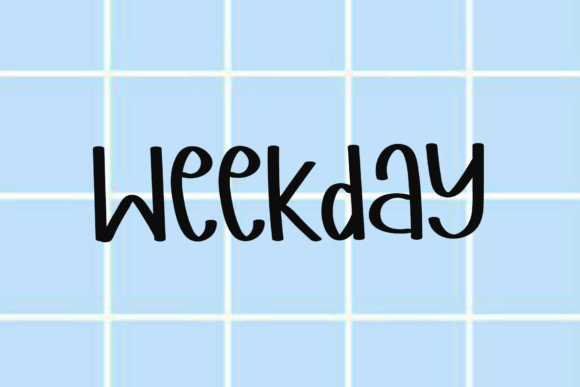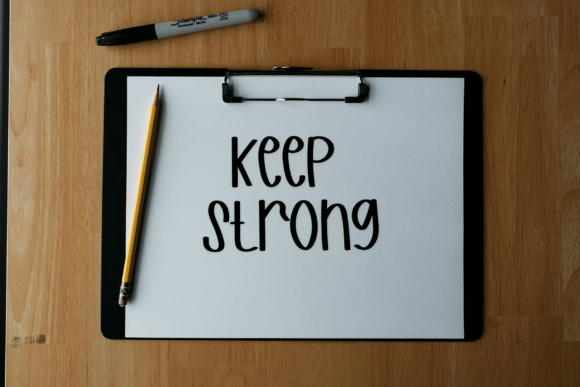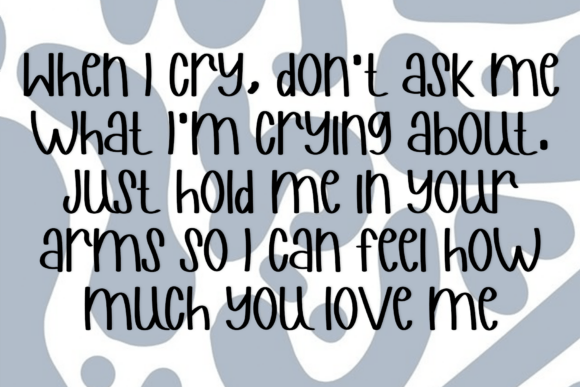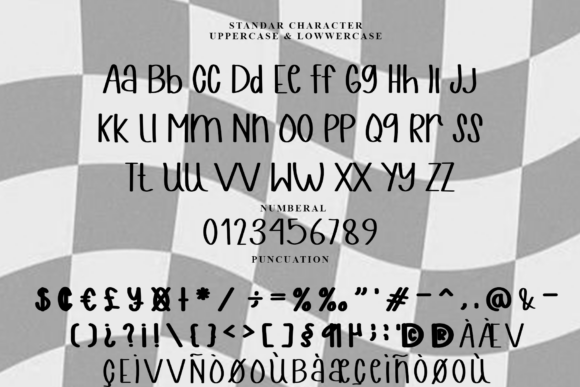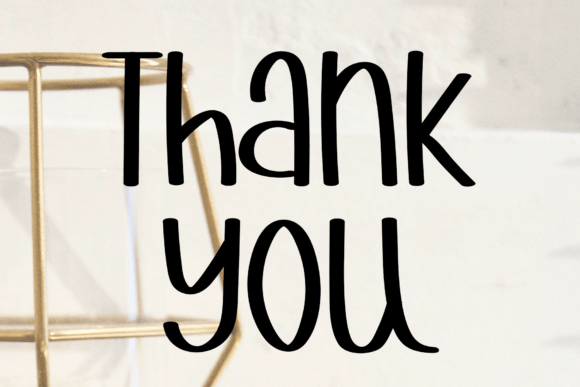
The Joy of Grafik Font: A Designer’s Delight
I still remember the time I was working on a Valentine’s Day project for a client, and I was on a mission to find the perfect font. I had a vision of something cute, playful, and romantic, but my usual go-to fonts just weren’t cutting it. That’s when I stumbled upon Grafik Font, and it instantly stole my heart! 💕 With its whimsical style, heart-themed elements, and clean letterforms, it’s the perfect addition to any design that needs a joyful, romantic touch.
An Honest Review of Grafik Font
- ✅ The handmade feel of Grafik Font is unparalleled – it’s like adding a personal touch to your designs.
- ✅ The heart-themed elements and whimsical style make it perfect for love notes, social posts, and greeting cards.
- ✅ The clean letterforms ensure that the font remains readable, even at smaller sizes.
- ✅ It’s incredibly versatile and can be used for a wide range of projects, from digital to print.
- ⚠️ Some of the more intricate heart-themed elements can get a bit lost at smaller font sizes.
- ⚠️ As with any font that relies heavily on OpenType features, you may encounter compatibility issues with certain software or platforms.
The Story Behind Grafik Font
Grafik Font was designed with love and care by a talented type designer who wanted to create a font that would spread joy and positivity. The designer’s inspiration came from traditional handmade fonts, with a dash of modern whimsy and playfulness. The result is a font that’s perfect for designers, crafters, and creative hobbyists who want to add a personal touch to their projects.
| Font Name | Grafik Font |
| Author | Preketek texs |
Q: What is Grafik Font best used for?
A: Grafik Font is perfect for love notes, social posts, greeting cards, and anything that needs a joyful, romantic touch.
Q: Is Grafik Font suitable for body text?
A: While Grafik Font is beautiful, it’s best used for headings, titles, or short paragraphs. Its readability decreases at smaller font sizes, making it less suitable for body text.